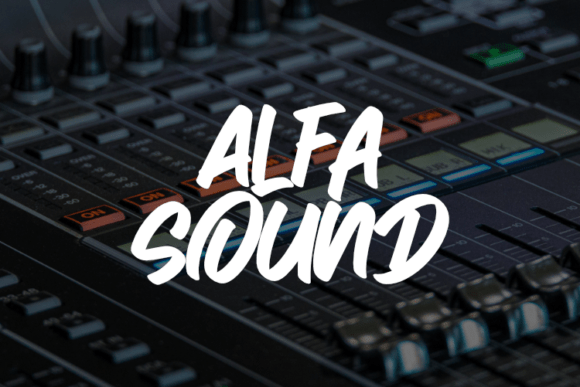
Introducing Alfa Sound: The Ultimate Design Font for Creatives
Have you ever been in the middle of a design project, and suddenly, you’re stuck on finding the perfect font? I recall a particularly frustrating experience when I was working on a fashion brand’s logo. The client wanted something bold, stylish, and versatile, but I just couldn’t seem to find a font that ticked all the boxes. That’s when I discovered Alfa Sound, a game-changing font that has since become a staple in my design toolkit.
What Makes Alfa Sound Special?
Alfa Sound is more than just a font – it’s a design experience. Crafted with an eye for detail and an ear for creativity, this unique typography is perfect for fashioning apparel and products that demand attention. Its versatility is unmatched, seamlessly merging with all kinds of designs to create something truly remarkable.
Key Features of Alfa Sound
So, what sets Alfa Sound apart? Here are a few key features that make it a must-have for designers, crafters, and creative hobbyists:
• ✅ Perfect for creating stylish and audacious designs
An Honest Review of Alfa Sound
What I Love About Alfa Sound
Here’s what I’m obsessed with about Alfa Sound:
• ✨ Its bold and stylish aesthetic, perfect for making a statement
• ✨ The range of OpenType features, glyphs, and stylistic alternates that allow for endless creativity
While Alfa Sound is an exceptional font, there are a few minor quirks to be aware of:
• ⚠️ Some users may find the font’s boldness overwhelming for certain design projects
• 🤔 The font’s versatility can sometimes make it difficult to choose the perfect style
The Backstory Behind Alfa Sound
Alfa Sound was designed with the creative community in mind. Its creator, a passionate typographer, wanted to craft a font that would inspire designers to push the boundaries of their creativity. With Alfa Sound, you can expect a design experience that’s both stylish and audacious.
Q: Is Alfa Sound suitable for body text?
A: While Alfa Sound is a beautiful font, it’s best suited for headlines and titles. For body text, you may want to choose a font with better legibility.